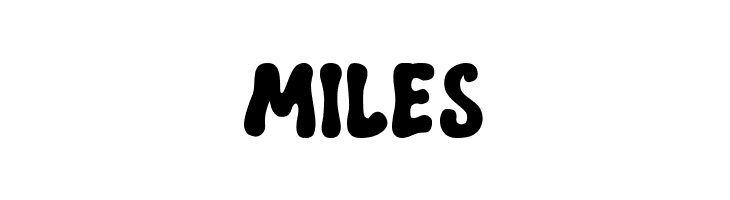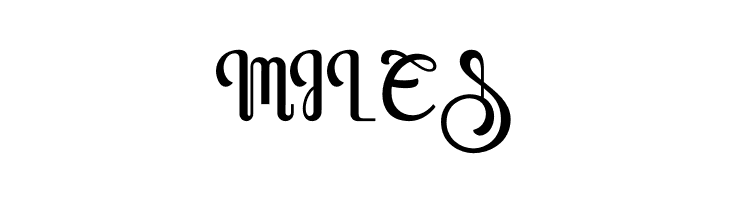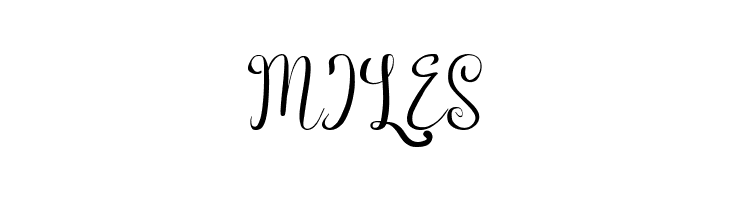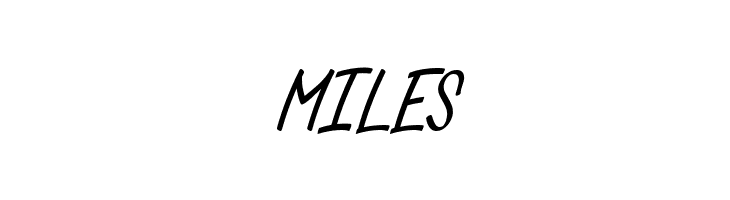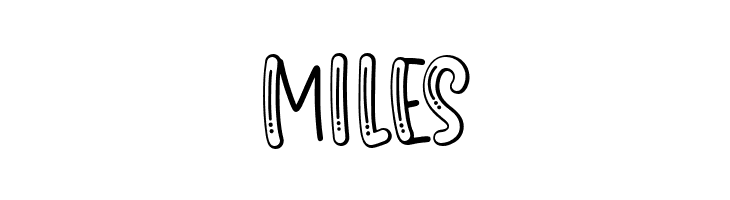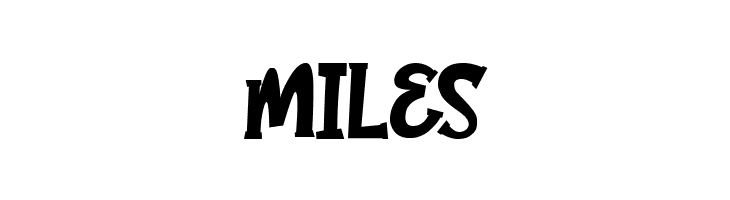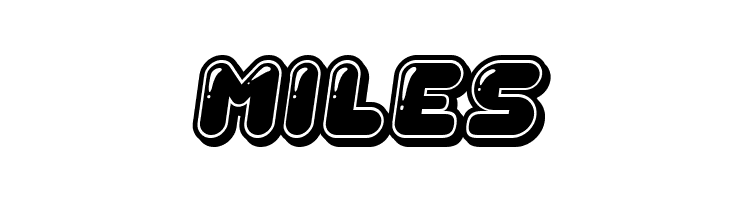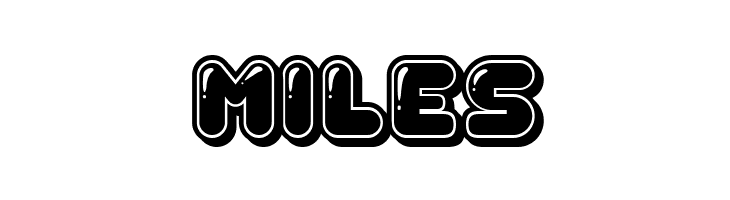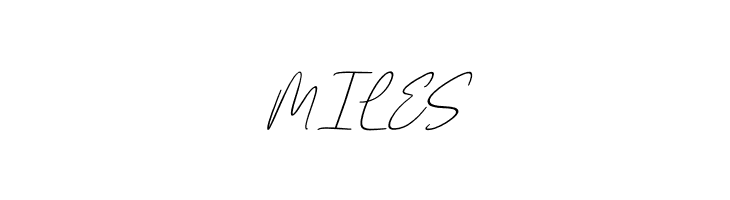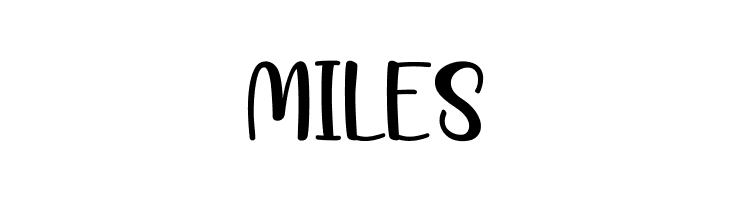
A lively, flowing script font with smooth, cursive strokes.
A dynamic and fluid script font with elegant, flowing letterforms.
A flowing, calligraphic script font with elegant, connected strokes and decorative flourishes.
A modern decorative font with flowing, interconnected strokes and elegant curves.
A lively, handwritten-style font with fluid, expressive strokes.
An elegant, flowing script font with smooth, cursive strokes.
A modern, elegant script font with a flowing, cursive style.
A bold, angular font with a futuristic and geometric design.
A whimsical, handwritten font with tall, narrow letters and a playful style.
An elegant script font with flowing lines and decorative swashes.
A playful, bold font with rounded, slightly irregular letterforms.
A bold, outlined font with a modern geometric design.
A bold, expressive script font with flowing, interconnected characters.
An elegant script font with flowing, ornate cursive letters and intricate flourishes.
A bold, bubble-like font with rounded edges and an italic slant, perfect for playful designs.
A playful, bubble-like font with bold, rounded edges and a three-dimensional outline.
A lively and energetic handwritten font with smooth, slightly slanted letterforms.
A lively, cursive font with smooth, flowing strokes and medium contrast.
A playful, handwritten font with bold, rounded characters and a whimsical style.
A bold, playful font with a whimsical, cartoon-like style.
A playful, hand-drawn font with a bubbly, cartoonish style.
A playful, bold font with rounded, bubbly characters ideal for creative projects.
A playful, hand-drawn font with rounded, fluid characters.
A playful, bold font with rounded, bubbly characters perfect for creative projects.
A playful, bold font with rounded, bubbly characters and a whimsical style.
A playful, handwritten font with consistent strokes and rounded edges.
A dynamic handwritten font with expressive, brush-like strokes.
An elegant, flowing script font with ornate, cursive letterforms.
An elegant script font with flowing, cursive strokes and ornate flourishes.
A playful, handwritten script font with bold uppercase and fluid lowercase letters.
A playful, handwritten script font with a dynamic and friendly style.
A bold, cursive font with elegant, flowing lines and high contrast.
A playful, elegant cursive font with flowing, interconnected strokes.
An elegant, flowing script font with graceful curves and swashes.